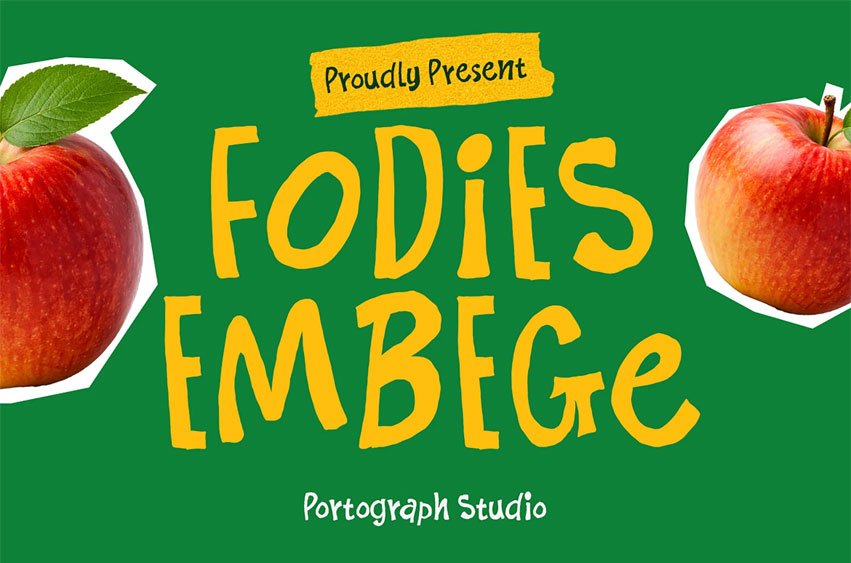
Fodies Embege Font
Fodies Embege Font is a playful handwritten display font inspired by the warmth of homemade meals and the joy of food culture. Designed with organic strokes and slightly irregular shapes, this font delivers a natural, friendly, and authentic look that instantly attracts attention.
Whether you’re designing for a pizza shop, burger brand, bakery, or organic café, this font will add a delicious personality to your typography.
Perfect For:
• Restaurant branding
• Café menu design
• Pizza & burger shops
• Food packaging
• Street food promotion
• Food festival posters
• Social media food ads
• Organic product branding